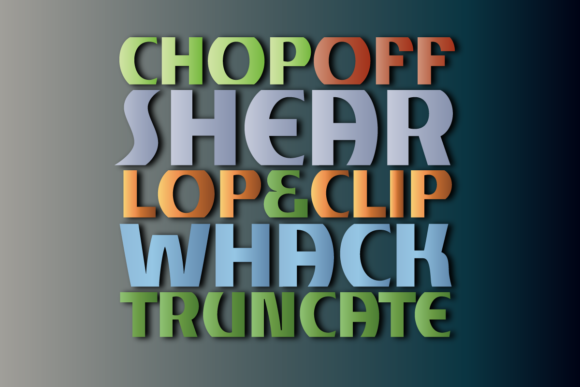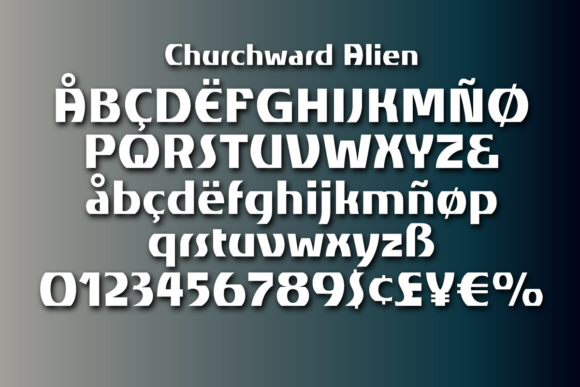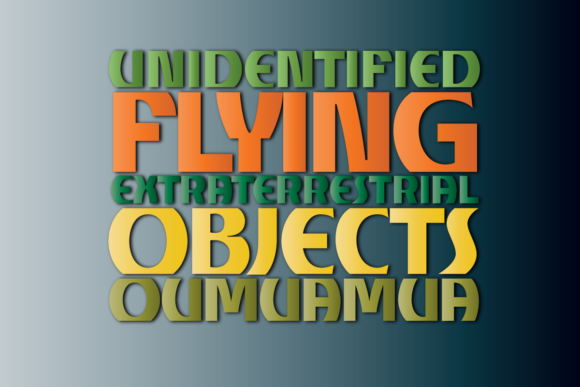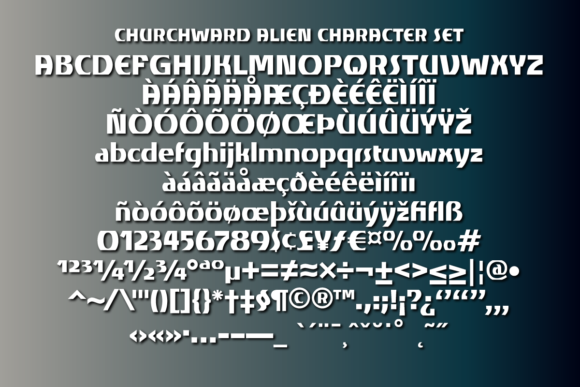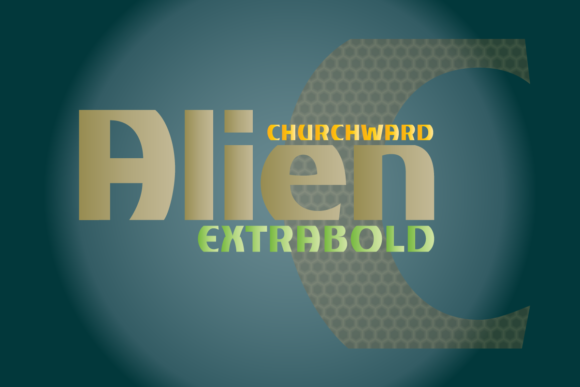
Unleash Your Creativity with Churchward Alien Font
In the realm of typography, fonts play a crucial role in conveying messages, expressing emotions, and creating visual identities. For designers, crafters, and creative enthusiasts, finding the right font can be a game-changer. If you’re on the hunt for a uniquely designed and bold display font, look no further than Churchward Alien. This striking font is sure to elevate your projects and leave a lasting impression.
What is Churchward Alien Font?
Churchward Alien is a distinctive and eye-catching display font that is perfect for making a statement. Its bold and futuristic design makes it an ideal choice for a wide range of creative projects, from branding and advertising to packaging and digital media. With its unique character set and attention-grabbing style, Churchward Alien is sure to set your work apart from the rest.
Key Features of Churchward Alien Font
• Bold and Futuristic Design: Churchward Alien boasts a bold and futuristic design that is sure to turn heads.
• Unique Character Set: The font features a unique character set that adds to its distinctive style.
• Highly Versatile: Churchward Alien can be used for a wide range of creative projects, from digital media to print materials.
• Easily Readable: Despite its bold design, Churchward Alien is easily readable, making it perfect for use in a variety of contexts.
Benefits of Using Churchward Alien Font
So, why choose Churchward Alien for your creative projects? Here are just a few benefits:
• Stand Out from the Crowd: With its unique design, Churchward Alien is sure to make your project stand out from the crowd.
• Convey a Sense of Futurism: The font’s futuristic style is perfect for conveying a sense of innovation and forward-thinking.
• Add a Touch of Boldness: Churchward Alien adds a touch of boldness and confidence to any project.
Tips and Tricks for Getting the Most out of Churchward Alien
To get the most out of Churchward Alien, here are a few tips and tricks:
• Use it Sparingly: While Churchward Alien is a bold font, it can be overwhelming if used excessively. Use it sparingly to create a lasting impact.
• Pair it with Other Fonts: Experiment with pairing Churchward Alien with other fonts to create a unique and visually appealing combination.
In conclusion, Churchward Alien is a uniquely designed and bold display font that is sure to elevate your creative projects. With its futuristic style, unique character set, and highly versatile design, it’s the perfect choice for designers, crafters, and creative enthusiasts. So why wait? Add Churchward Alien to your favorite creations and let yourself be amazed by the outcome generated.